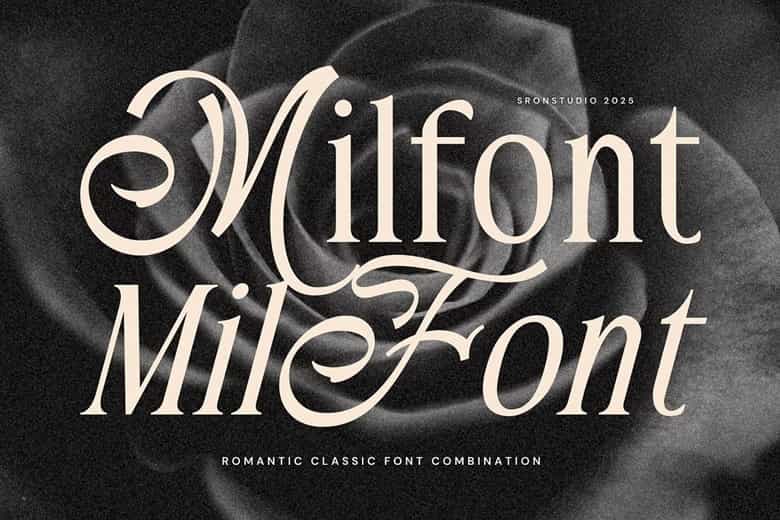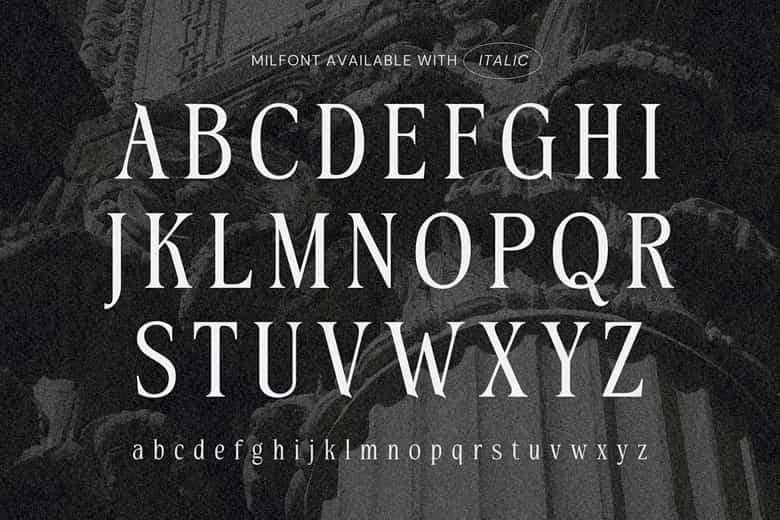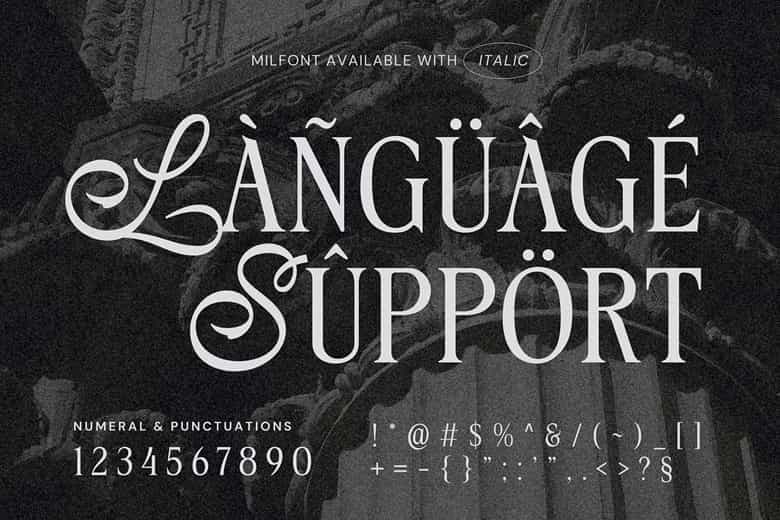
Milfont Font
Milfont is a package of serif fonts that will help you take your design to the next level. Milfont combines timeless sophistication with contemporary flexibility and makes it suitable for branding, editorial designs, packaging, logos and many other purposes.